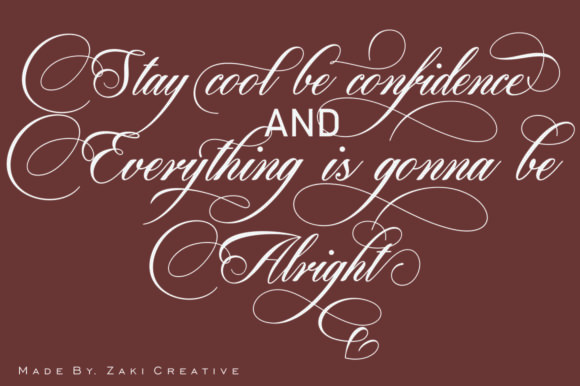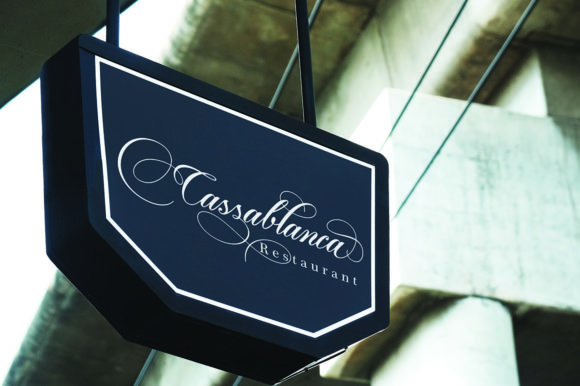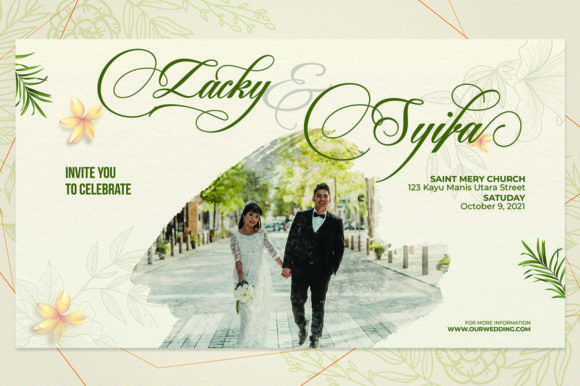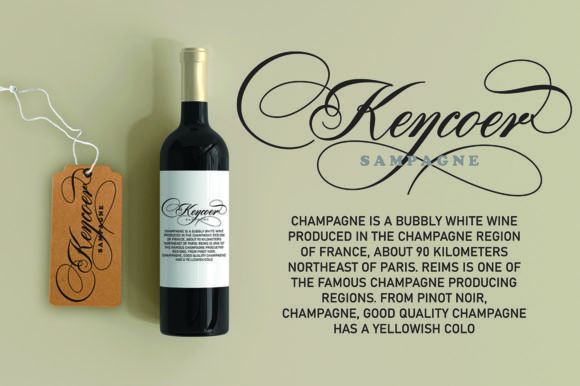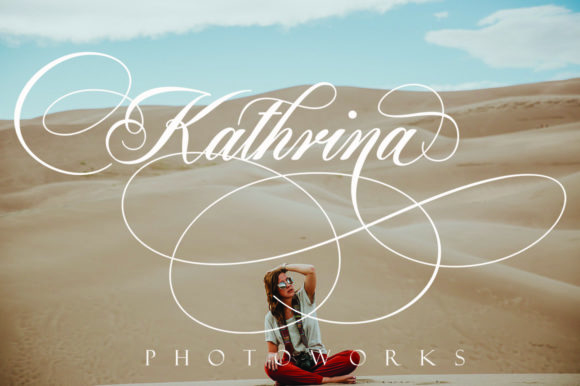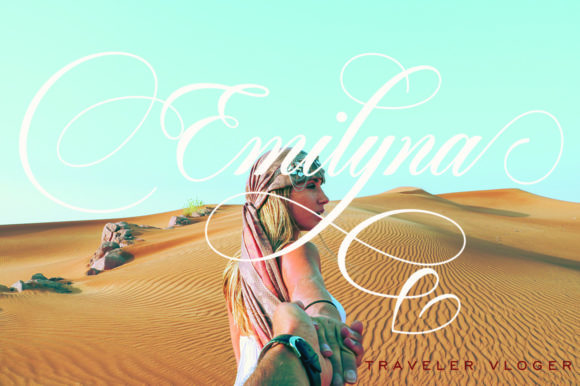
Introducing Angelina Font: The Epitome of Elegance and Sophistication
In the realm of typography, few fonts manage to convey the perfect blend of sophistication, elegance, and charm. However, Angelina Font stands out as a remarkable exception. This beautifully crafted handwritten font is designed to deliver any message with confidence, authenticity, and a touch of allure. Whether you’re a designer, crafter, or simply someone with a keen eye for detail, Angelina is sure to captivate your audience and elevate your projects to new heights.
The Beauty of Angelina Font
Angelina Font is an exquisite example of modern calligraphy, boasting fluid strokes, delicate connections, and an overall sense of refinement. Its elegant appearance makes it an ideal choice for a wide range of applications, from wedding invitations and branding materials to packaging and digital media. The font’s sophisticated demeanor ensures that your message is conveyed with poise and gravitas, setting it apart from more mundane typography options.
One of the standout features of Angelina Font is its PUA (Private Use Area) encoding. This innovative encoding system allows designers to access a vast array of glyphs and swashes with ease, providing unparalleled flexibility and creative freedom. With PUA encoding, you can effortlessly incorporate intricate details, flourishes, and ornaments into your designs, taking your work to the next level.
Key Features of Angelina Font
- Sophisticated and Elegant Design: Angelina Font boasts a refined, high-end aesthetic that’s perfect for delivering messages with confidence and charm.
- PUA Encoding: Enjoy effortless access to a wide range of glyphs and swashes, allowing for limitless creative possibilities.
- Handwritten with Flair: Each letterform is carefully crafted to convey a sense of authenticity and personality.
- Versatile and Adaptable: Suitable for various design applications, including print, digital, and craft projects.
Applications for Designers and Crafters
Angelina Font’s versatility makes it an excellent addition to any designer’s or crafter’s toolkit. Here are just a few ideas to get you started:
- Wedding Invitations and Stationery: Create beautiful, bespoke wedding materials that exude elegance and sophistication.
- Branding and Packaging: Elevate your brand’s visual identity with a font that conveys refinement and poise.
- Digital Media: Use Angelina Font to add a touch of luxury to your website, social media, or marketing materials.
- Crafting and Scrapbooking: Add a personal, handmade touch to your craft projects with this beautiful handwritten font.
In conclusion, Angelina Font is a stunning handwritten font that offers the perfect blend of sophistication, elegance, and charm. With its PUA encoding and versatile design, it’s an excellent choice for designers, crafters, and anyone looking to elevate their projects with a touch of refinement. Whether you’re working on a wedding invitation, branding materials, or simply a personal craft project, Angelina Font is sure to impress.